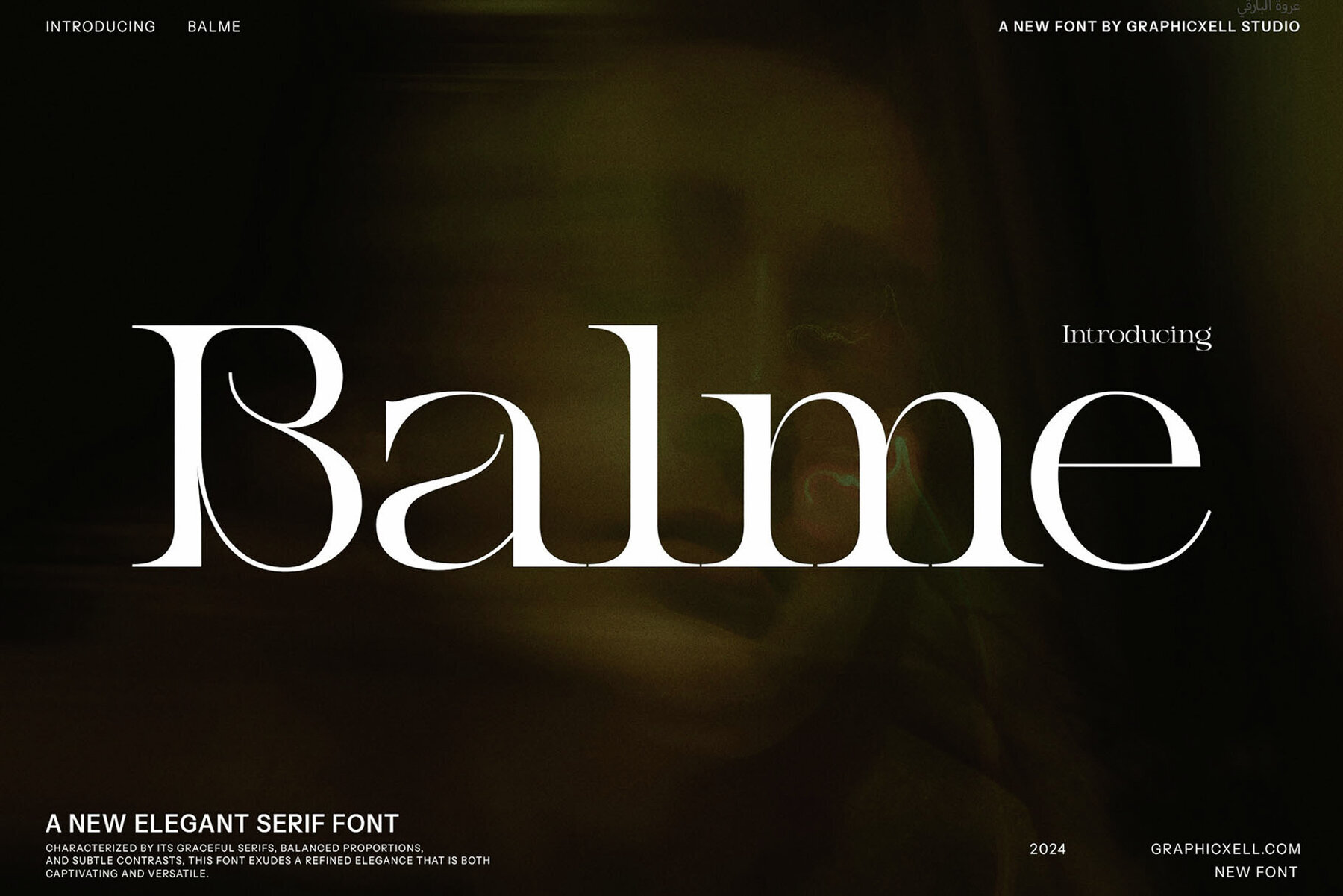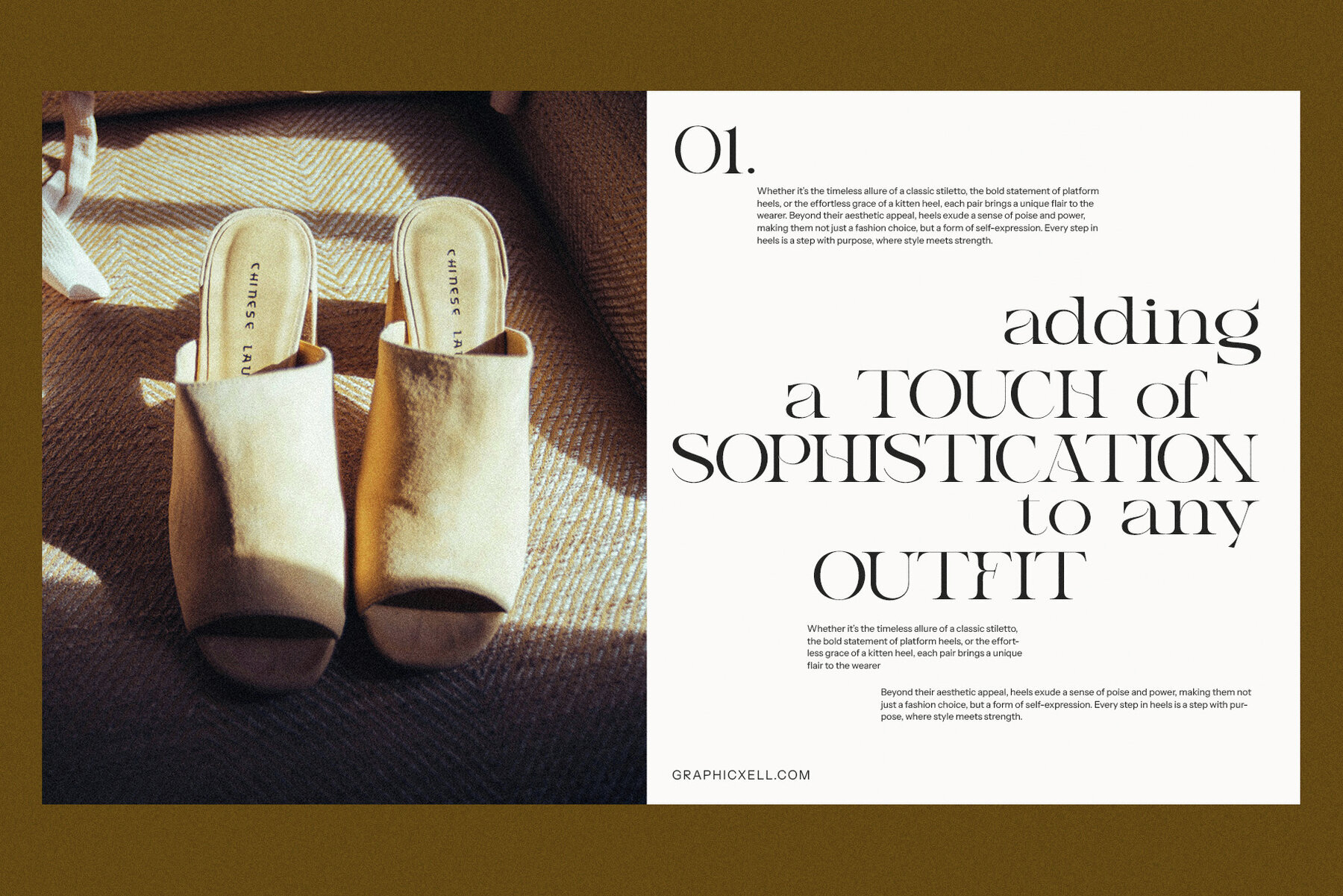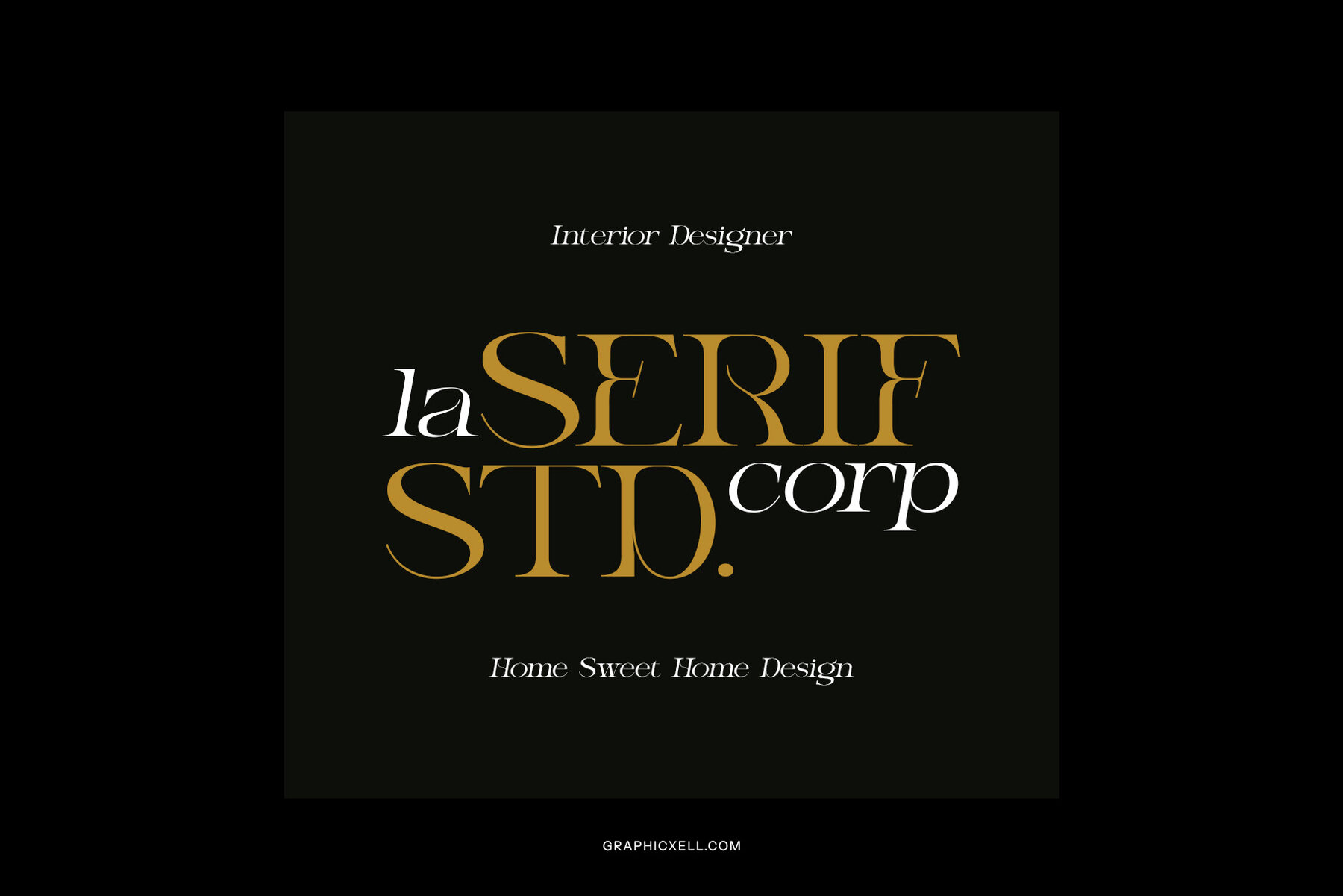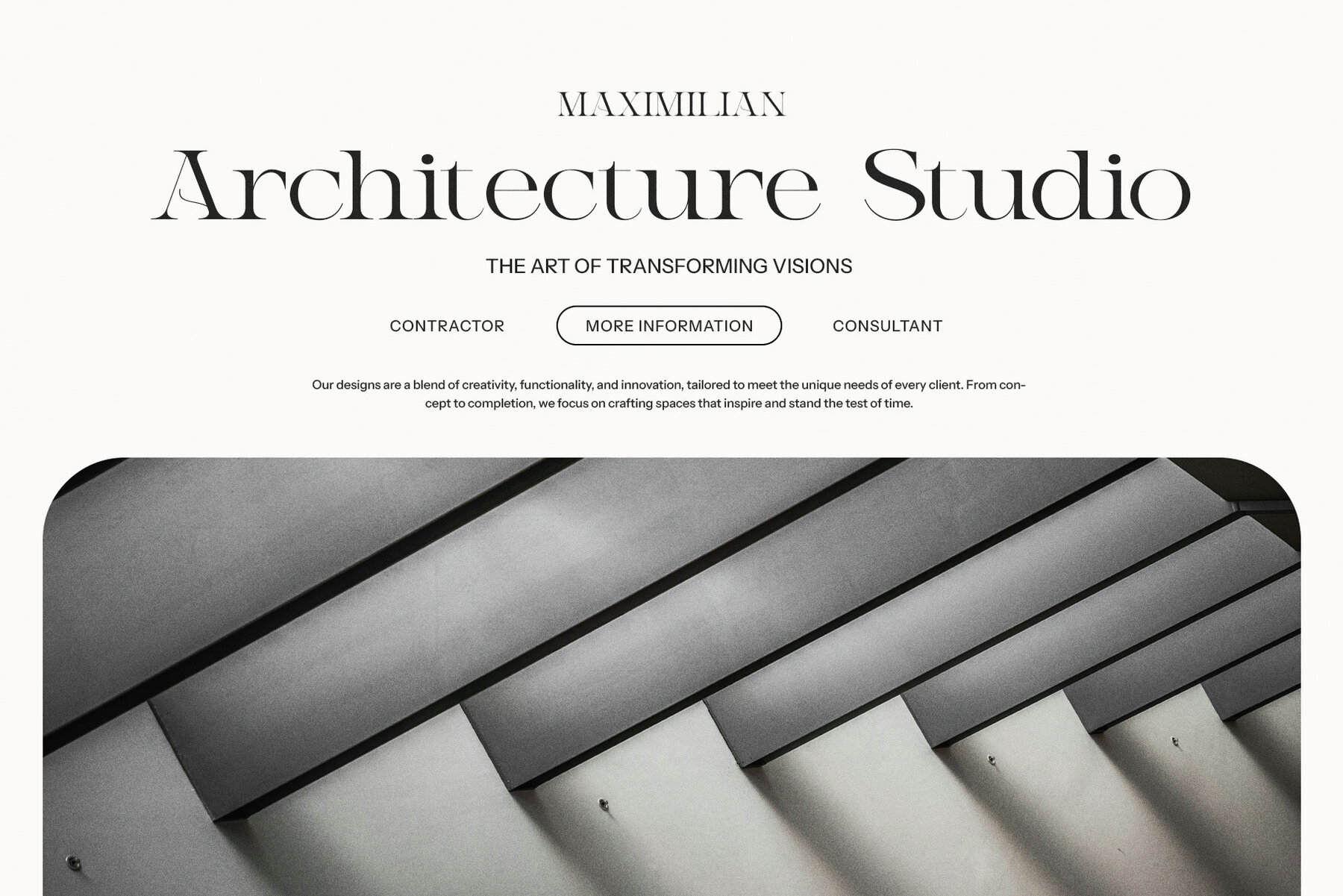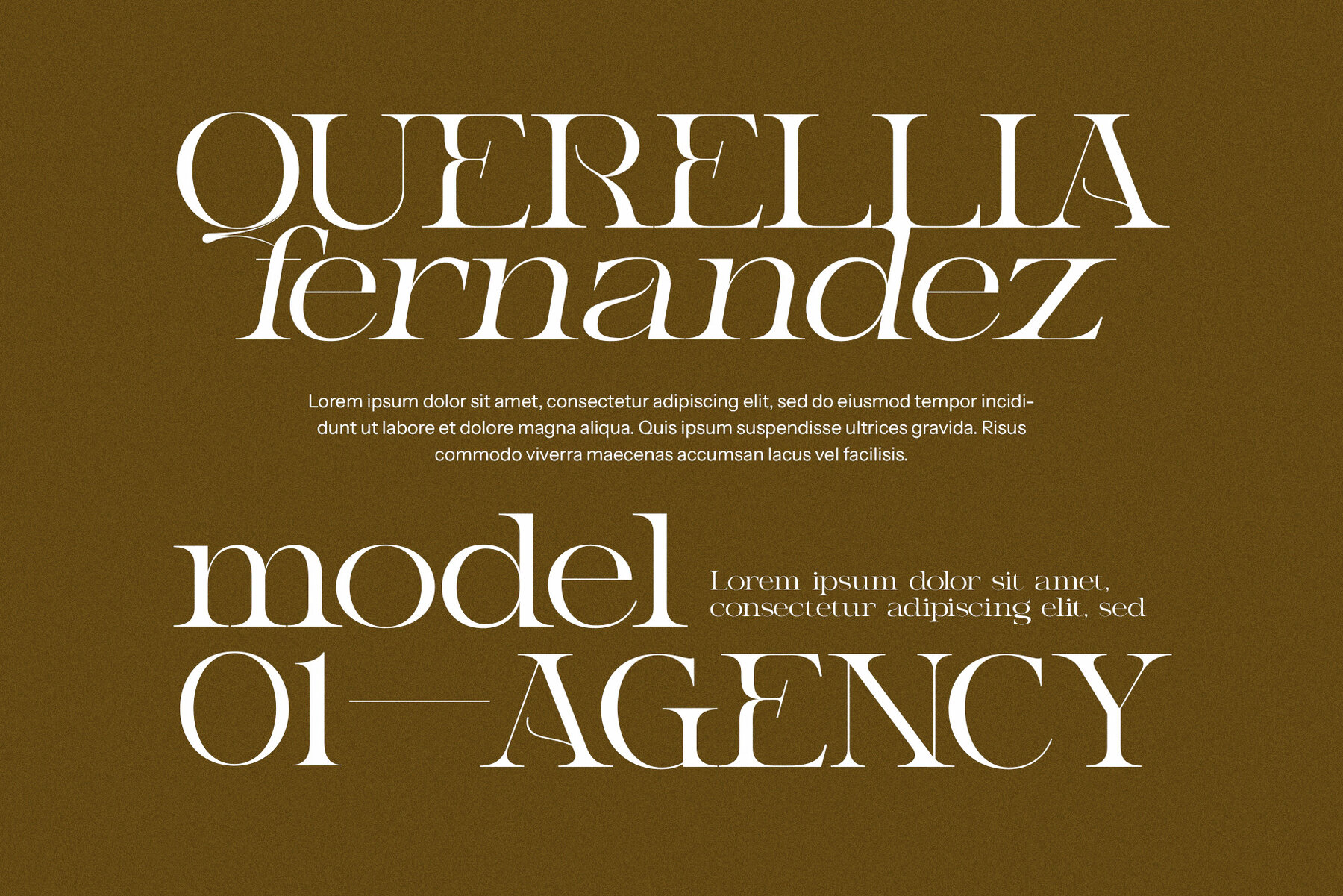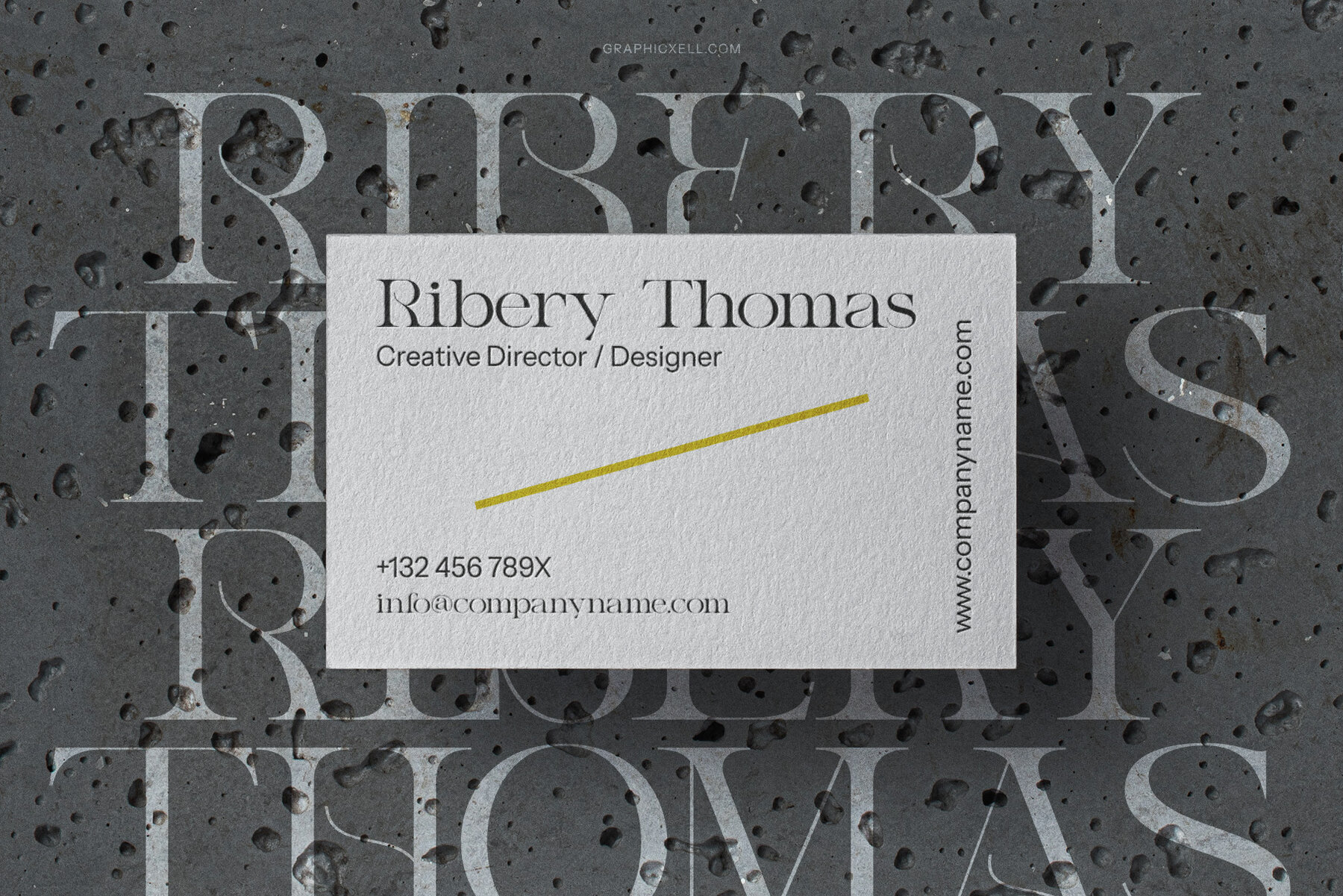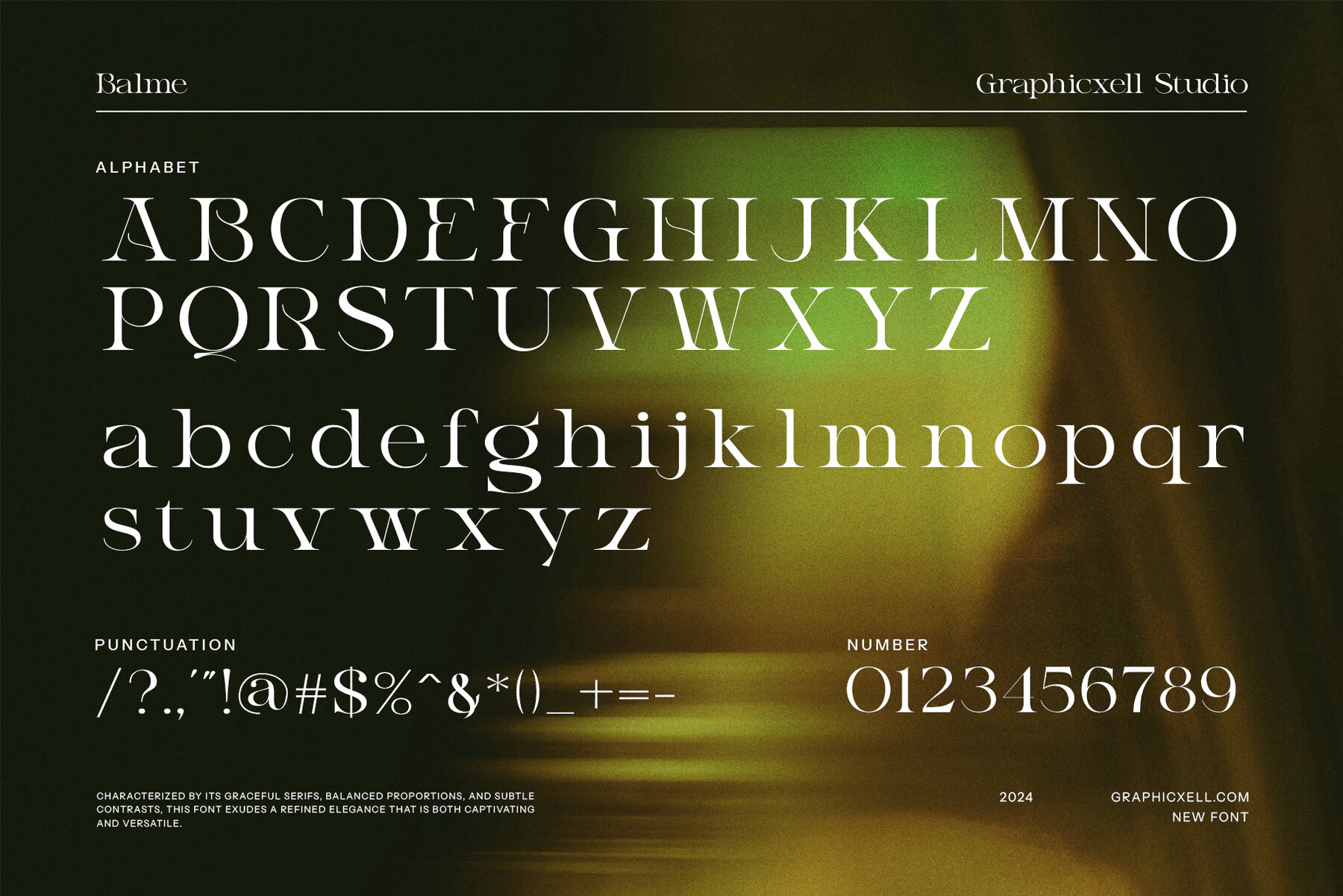
Balme Font
Balme
Balme Modern Serif Font embodies a harmonious blend of contemporary elegance and unique design elements, making it a distinctive choice for graphic and digital design projects. With its sleek and sophisticated letterforms, this font strikes a perfect balance between tradition and modernity, characterized by its graceful serifs and dynamic angles. Its gentle curves and refined features add a layer of sophistication, ensuring high legibility for both headings and body text. Balme's carefully considered proportions allow it to integrate seamlessly into various design contexts, whether in bold headlines or subtle narratives, drawing the viewer's eye with its stylish integrity.
Versatility is at the heart of Balme Modern Serif Font, offering an edge in diverse applications from logo design to editorial layouts. Its distinctive character aids in crafting memorable brand identities, particularly for lifestyle brands, creative agencies, and luxury products. In magazines and editorial contexts, it offers a fresh perspective to traditional typography, enhancing readability without sacrificing visual appeal. The font's sophisticated presence excels in product packaging, enhancing presentation and appealing to consumers who value distinctive aesthetics. Balme not only elevates visual appeal but also fosters an emotional connection, enhancing brand perception and building consumer loyalty. This makes it an invaluable tool for designers aiming to create resonant visual experiences that are both aesthetically beautiful and emotionally engaging.